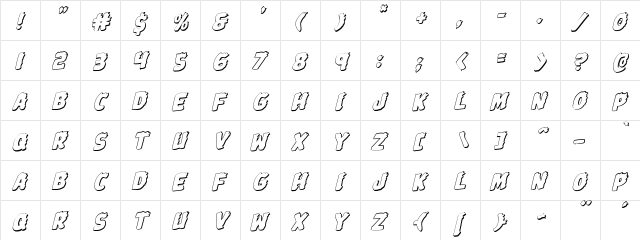
Johnny Torch 3D Rotalic Italic
Design Context for Johnny Torch 3D Rotalic Typeface
Johnny Torch 3D Rotalic is a composed and adaptable typeface that performs quietly and consistently across a wide range of design contexts. The slanted form adds forward momentum and visual energy.
Pro Tip: Try Johnny Torch 3D Rotalic for annotation and caption copy alongside an upright companion — the contrast in angle creates a dynamic but ordered typographic system.